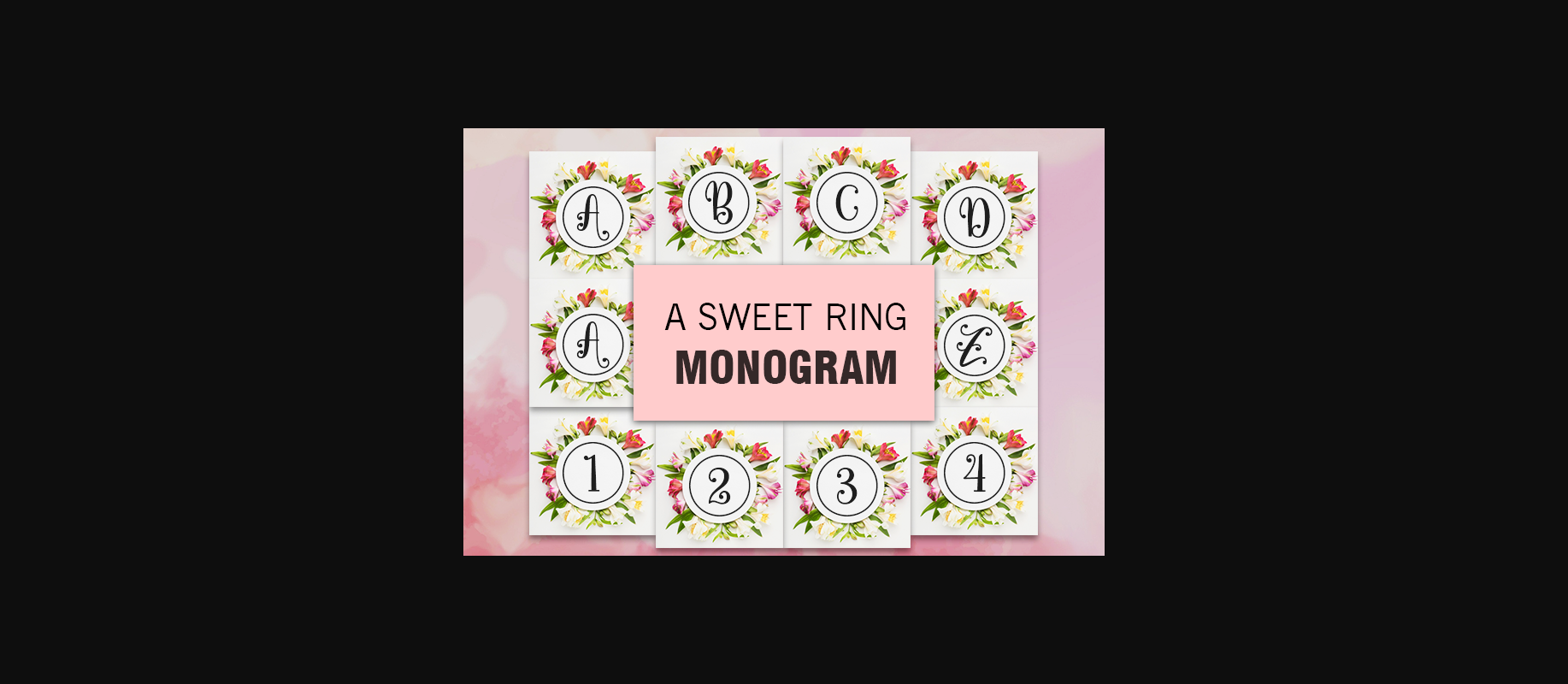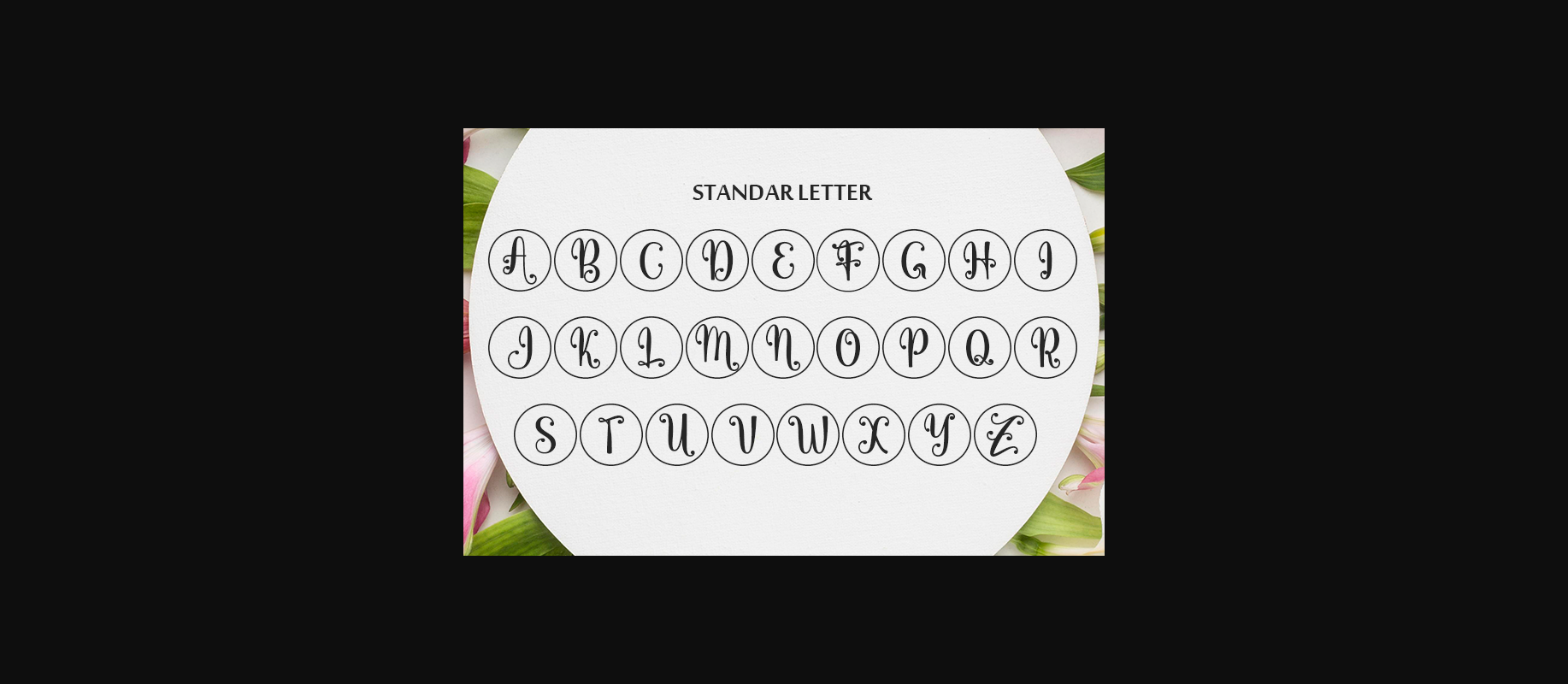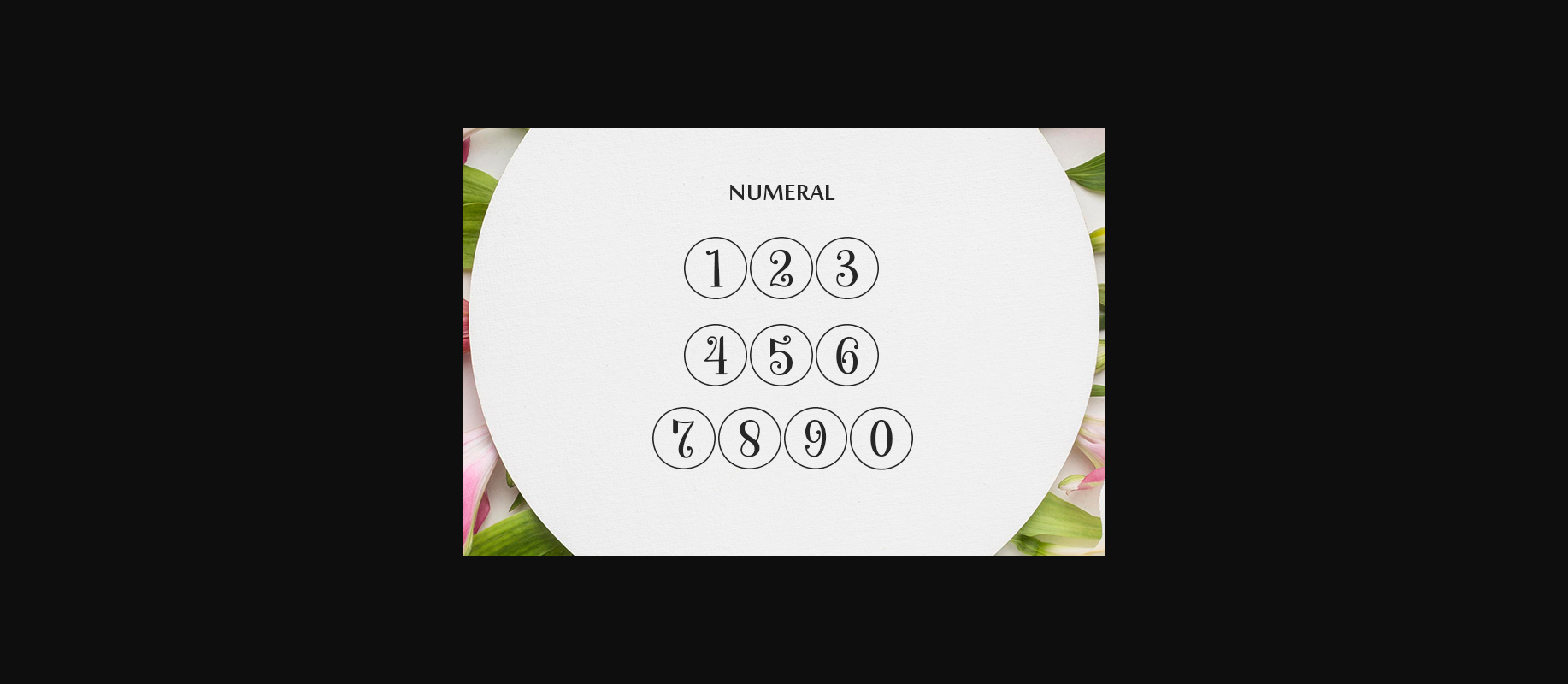
About A Sweet Ring Monogram Font
A Sweet Ring Monogram is a decorative font that features each script glyph in a simple circle. This is a sweet font that can be used for many designs and projects. Bonus file included of the glyphs in graphic format.